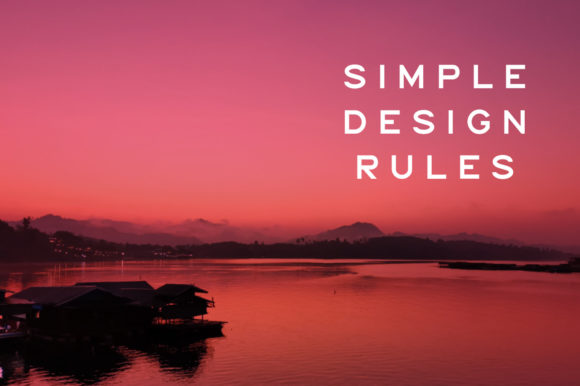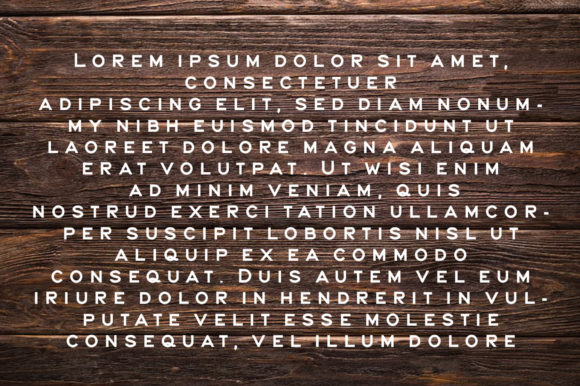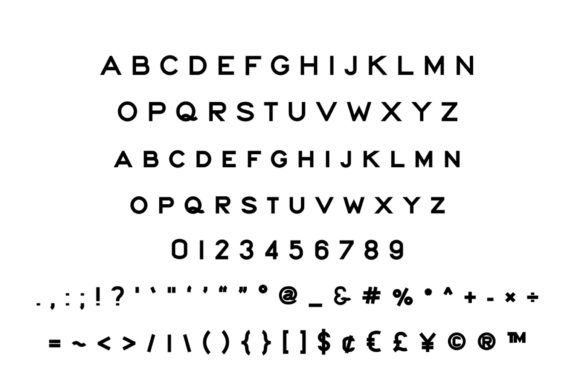
Discover the Perfect Harmony: Chateau Space Font
Remember that moment when you’re working on a project, and everything just clicks into place? The colors, the textures, the typography – it all comes together to create something truly special. For many designers, that magic moment is often thanks to the right font. And for those who have found it, we’re excited to introduce you to Chateau Space Font.
This minimal and neat sans serif font is designed to elevate your creative ideas, making them stand out in a crowded market. With its versatility, Chateau Space Font can be matched to an incredibly large set of projects, from sleek digital interfaces to elegant print materials. Whether you’re a seasoned designer or just starting out, this font is a valuable addition to your toolkit, helping you to create stunning visuals that leave a lasting impression.
Chateau Space Font Key Features
- Font Family: Chateau Space Font is a unique, modern sans-serif font designed for digital use. It is available in multiple font weights and styles.
- Character Set: The font includes a comprehensive set of characters, including uppercase and lowercase letters, numerals, punctuation marks, and special characters.
- Unique Characteristics: The font features a clean, geometric design with a touch of elegance, making it suitable for use in corporate branding, digital products, and luxury packaging.
Chateau Space Font Review
Overall, I think Chateau Space Font is a visually striking font. It’s perfect for anyone looking to add a touch of space-age glamour to their designs. ✨
The font’s unique blend of futuristic and elegant elements makes it a great choice for titles and headings. It’s also surprisingly versatile, working well in both digital and print applications.
Some of the font’s strengths include:
- Highly legible, even at small sizes
- Unique and memorable design
- Works well in a variety of color schemes
However, I do have a few concerns:
- May not be suitable for body text due to its decorative nature
- Can be a bit overbearing if used extensively
- Some users may find the font too space-age or retro-futuristic for their taste
⚠️ Be cautious of these limitations when deciding to use the font.
Overall, I think Chateau Space Font is a great addition to any designer’s toolkit, but it’s essential to use it thoughtfully and in moderation.
Chateau Space Font is ideal for creating elegant, high-end designs, such as wedding invitations, luxury branding, and fine art projects.
Tips: Use Chateau Space Font in combination with other elegant fonts to create a sophisticated look.